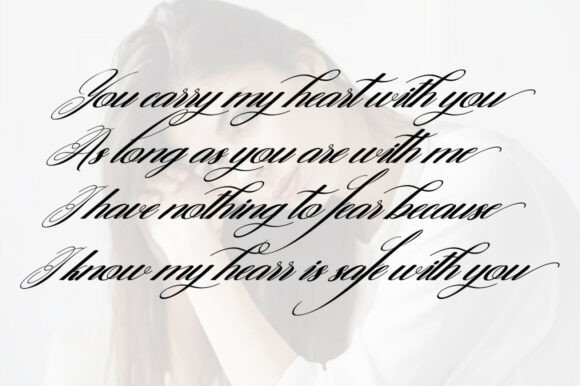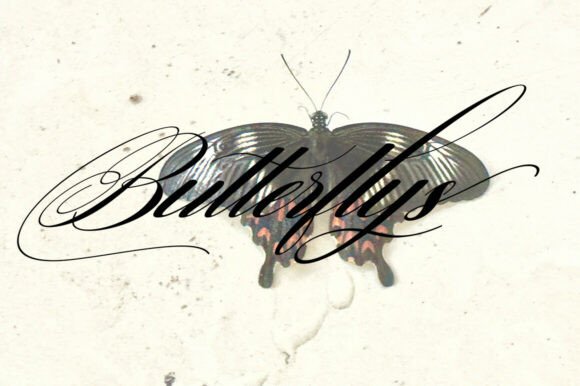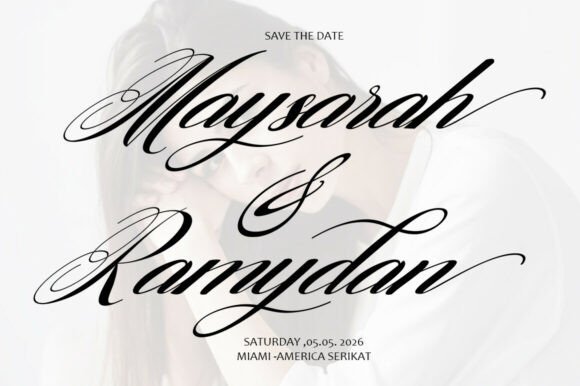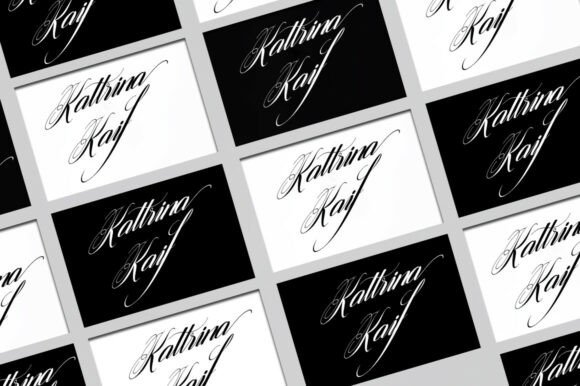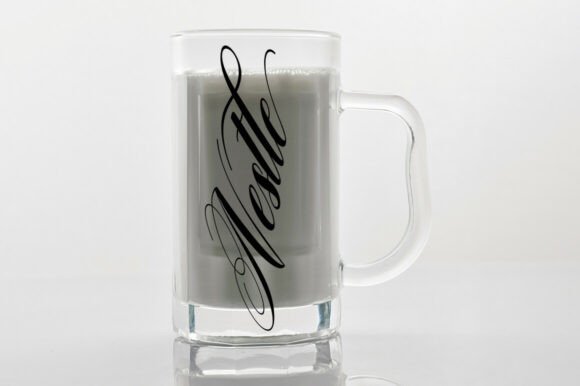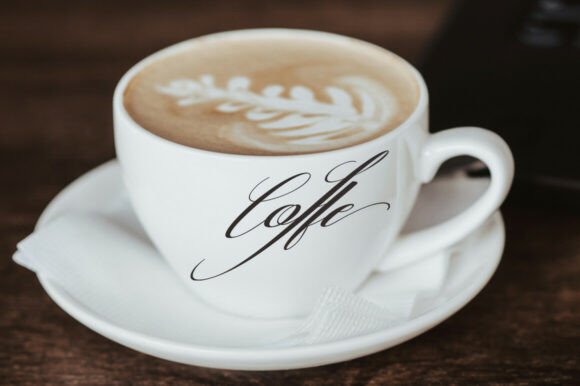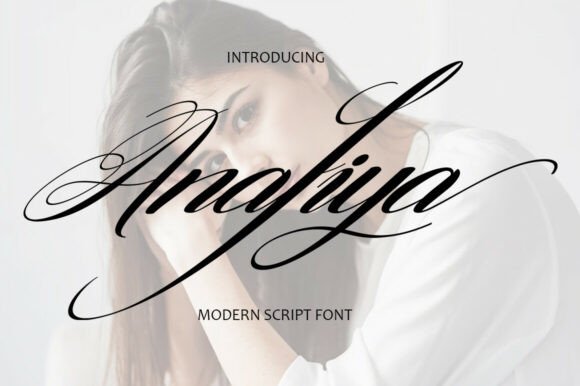
The Designer’s Delight: Anafiya Font
I’ll never forget the time I was working on a branding project for a trendy boutique, and I just couldn’t find the right font to capture their unique vibe. The client wanted something that exuded elegance, sophistication, and a dash of artistic flair. That’s when I stumbled upon the Anafiya font, and it was love at first sight! 💕
With its fluid brush strokes, dynamic curves, and expressive letterforms, Anafiya instantly transported me to a world of hand-painted calligraphy with a modern twist. I knew right then and there that this font was going to be the perfect fit for my client’s project.
What I Love About Anafiya ✨
- ✅ Its natural flow and vibrant character make it perfect for adding a creative and sophisticated touch to any design.
- ✅ The font’s versatility is impressive – it works beautifully for logos, invitations, packaging, and social media graphics.
- ✅ Anafiya’s unique blend of traditional and modern elements makes it stand out from other script fonts.
- ✅ The font’s readability is excellent, even at smaller sizes.
- ⚠️ Some users might find the font’s stylistic alternates a bit tricky to navigate, especially if they’re new to OpenType features.
- ⚠️ Anafiya’s script style might not be the best fit for very formal or traditional designs.
The Story Behind Anafiya
While the true origins of Anafiya remain a mystery, it’s said that the font’s designer was inspired by the intricate patterns and fluid lines of traditional Arabic calligraphy. With a passion for blending classic techniques with modern sensibilities, the designer crafted Anafiya as a tribute to the beauty of hand-painted lettering.
| Author | Shape Studio |
| What makes Anafiya unique? | Its distinctive blend of traditional and modern elements, along with its fluid brush strokes and dynamic curves. |
| Is Anafiya suitable for body text? | While Anafiya is primarily designed for display purposes, it can be used for short paragraphs of body text. However, its readability might decrease at very small sizes. |